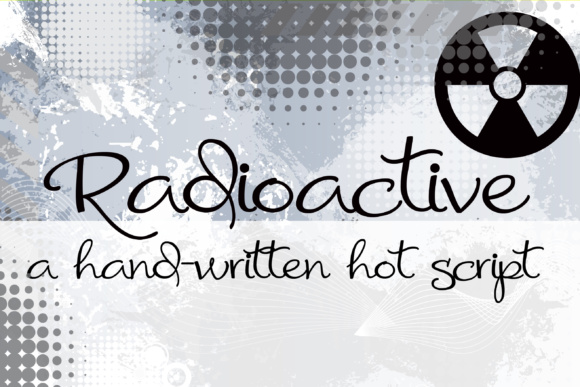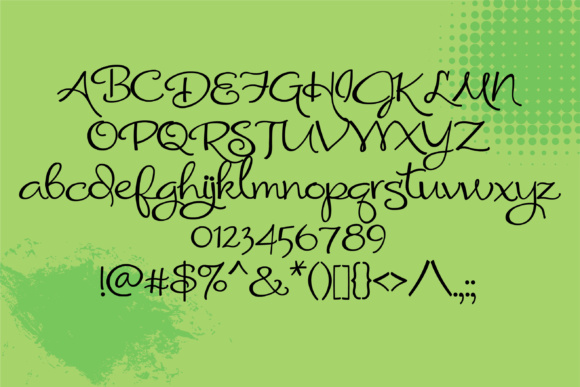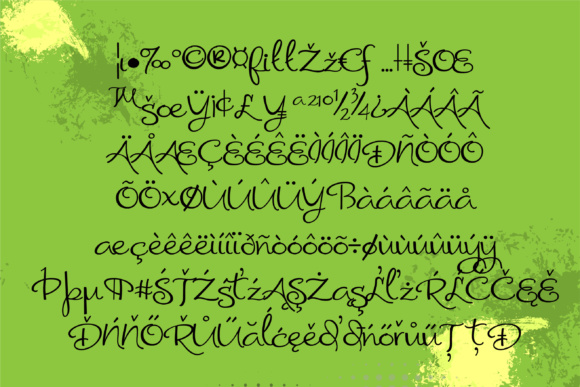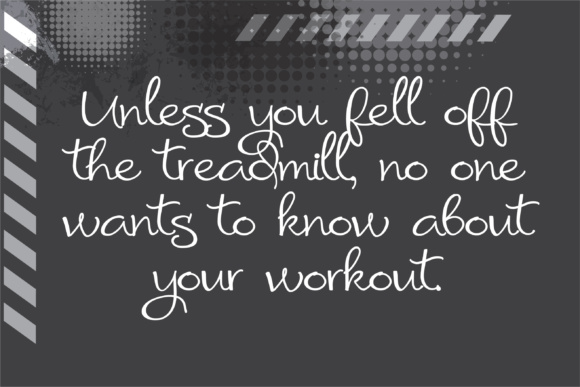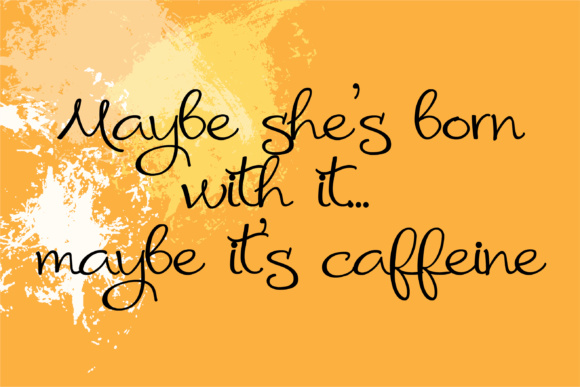
HomeScript FontsRadioactive Font Script Fonts Radioactive Font FacebookXPinterestWhatsApp Radioactive Font Poster 2 Radioactive Font Poster 3 Radioactive Font Poster 4 Radioactive Font Poster 5 About Radioactive Font Radioactive is a gorgeous hand-written script with big loopy descender’s. DOWNLOAD ON CREATIVE FABRICAThis font is sold and delivered by Creative Fabrica. Font Canyon may earn a commission if you buy through this link. People also explored Dayssies Font Homework Font Eclare Font Sunoise Font Throll Font My Ugly Font Spooky House Font Houston Pen Avangarde Font 345 0 TagsRadioactive Font Previous articleBrunella FontNext articleUnicorn Script Jitter Font LEAVE A REPLY Cancel reply Comment: Please enter your comment! Name:* Please enter your name here Email:* You have entered an incorrect email address! Please enter your email address here Website: Save my name, email, and website in this browser for the next time I comment. Personal Use Free December Christmas Personal Use Free Read more about this font Numberpile Personal Use Free Read more about this font Luxima Personal Use Free Read more about this font Kredit Personal Use Free Read more about this font BLOG Modern Sans-Serif Fonts That Brands Love in 2025 In 2025, modern sans-serif fonts remain a top choice for brands looking to project clarity, professionalism, and... How to Install and Use Fonts on Windows, macOS, and Web Projects 5 Fonts That Will Dominate Design Trends in 2026 Free vs Paid Fonts: Why Investing in Premium Fonts Is Worth It